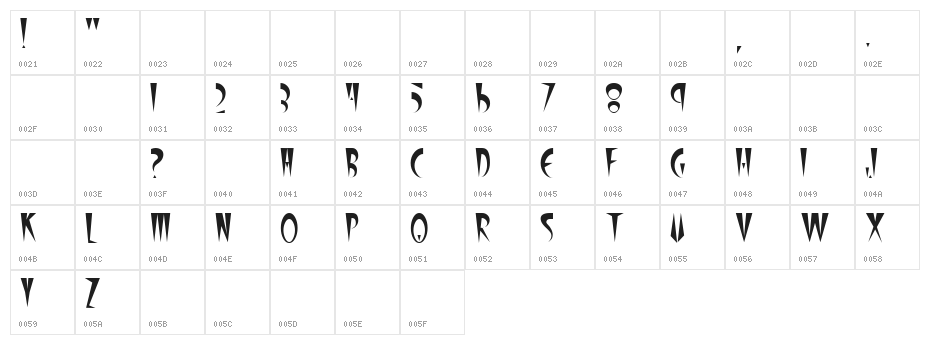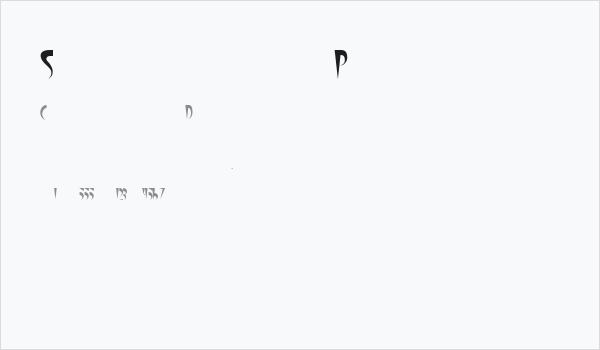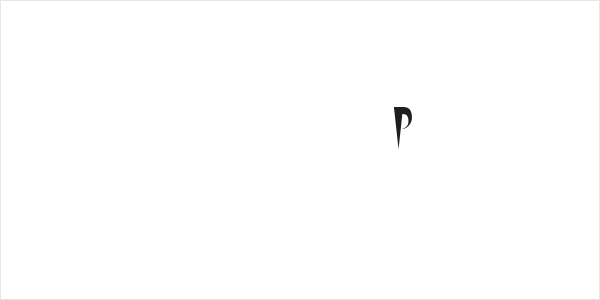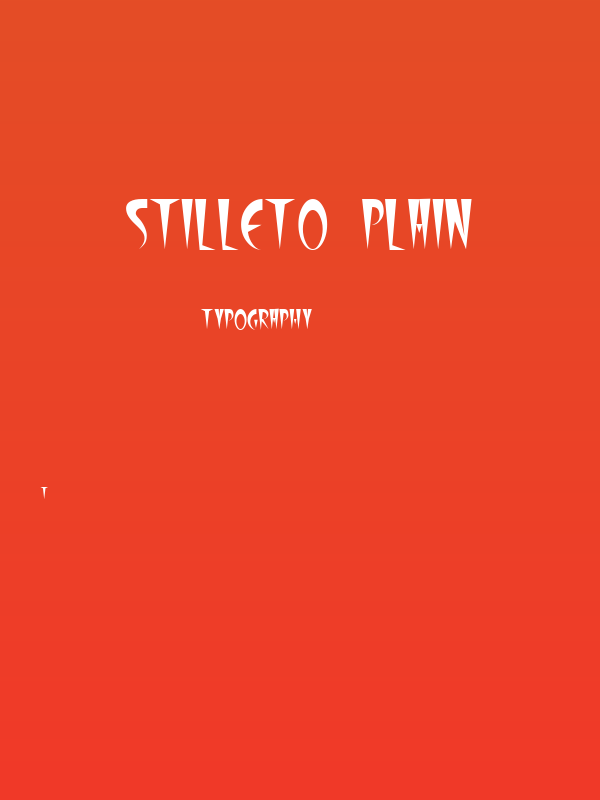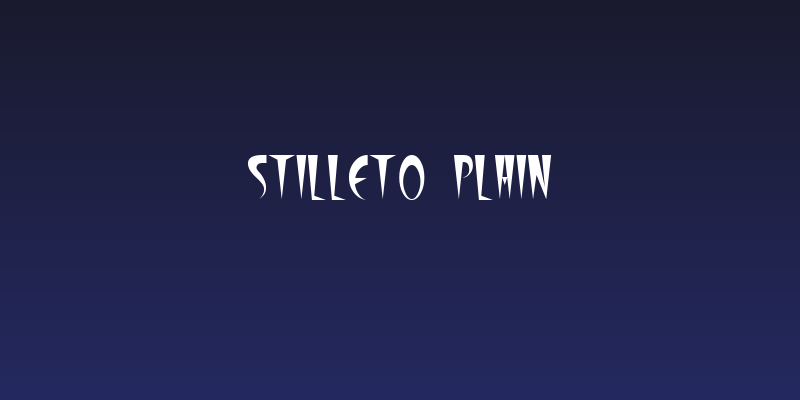
Stilleto Plain Font
Stilleto Plain Description
This font features a striking and bold design with sharp, angular edges and a high contrast between thick and thin strokes. The uppercase letters are particularly dramatic, with elongated vertical lines and pointed serifs that give a sense of movement and energy. The numbers and special characters maintain this dynamic style, making the font suitable for attention-grabbing designs. Its unique appearance is both modern and slightly retro, reminiscent of art deco influences. The font's overall aesthetic is highly decorative, making it ideal for projects that require a strong visual impact.
| Proposed Projects | Ideal for posters, logos, headlines, and branding materials that require a bold statement. |